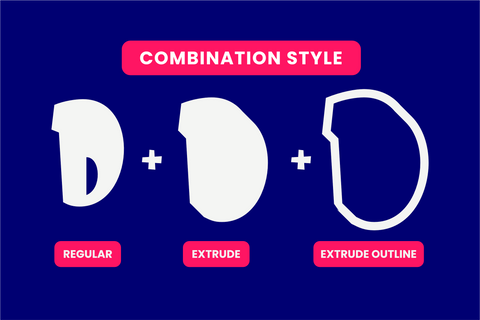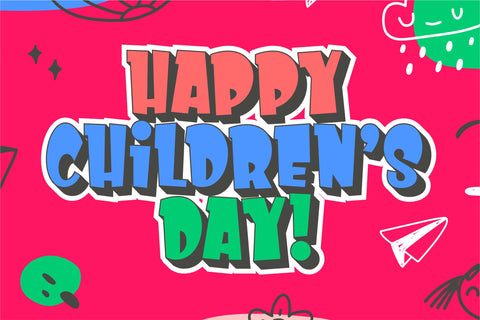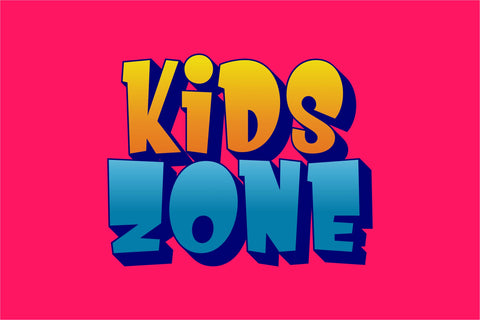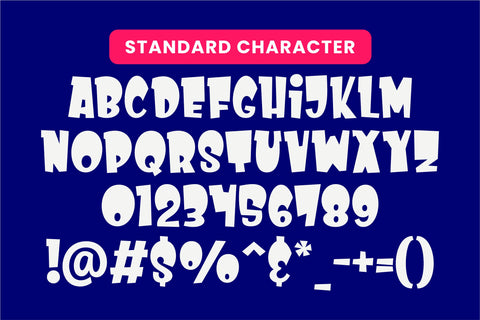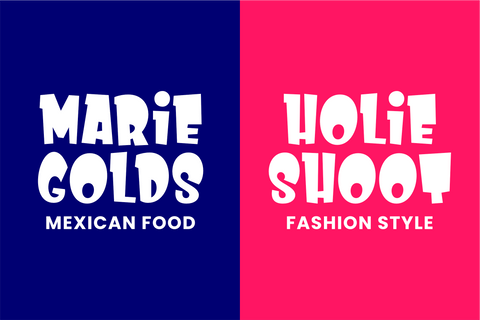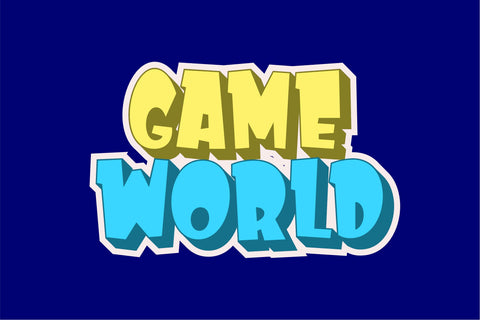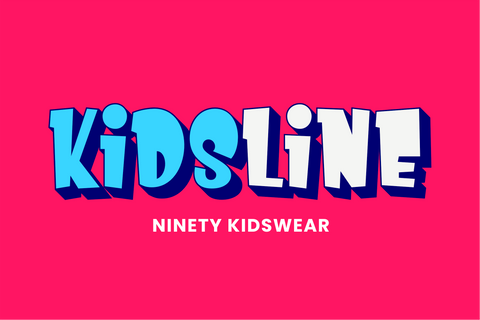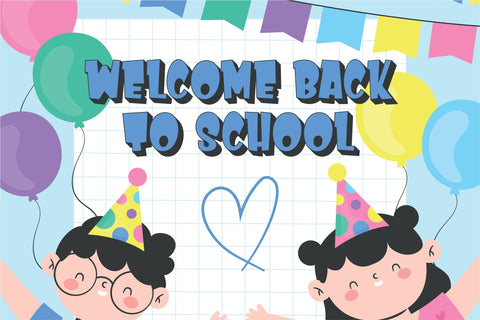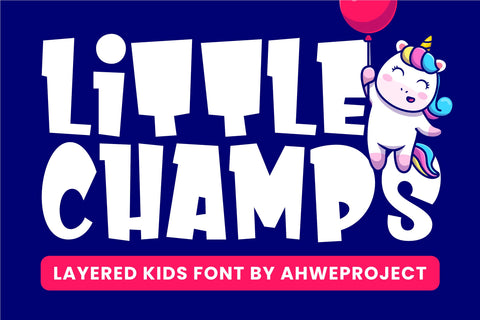
Little Champs
“Little Champs” is a playful and bold layered kids’ font perfect for adding a cheerful and energetic vibe to any design. Its quirky letterforms and fun style make it ideal for children’s books, toys, party invitations, and educational materials. Designed to captivate young audiences, this font exudes a vibrant personality and a sense of adventure. Whether you’re crafting a whimsical logo or a colorful headline, “Little Champs” ensures your designs stand out with a fun and lively charm.
- Uppercase & lowercase
- Numbers and punctuation
- Multilingual